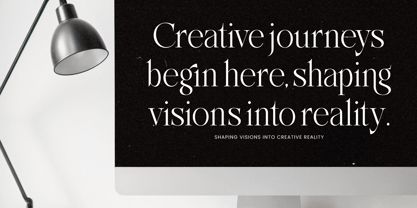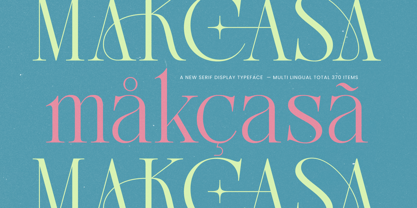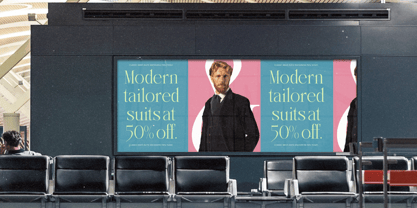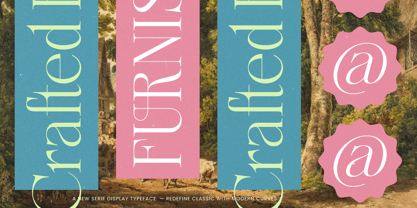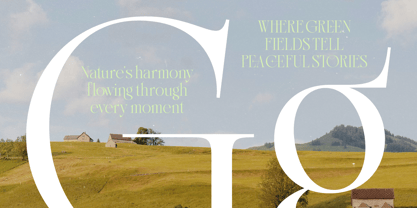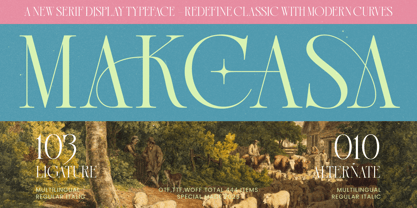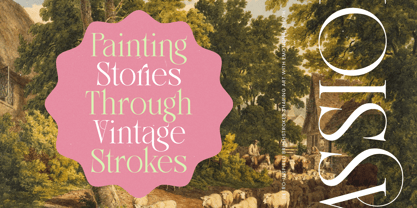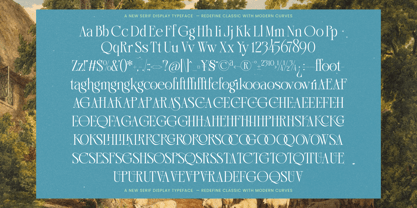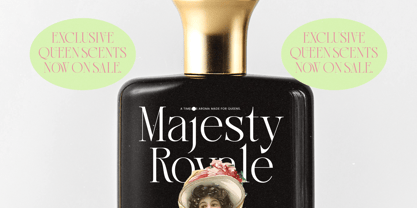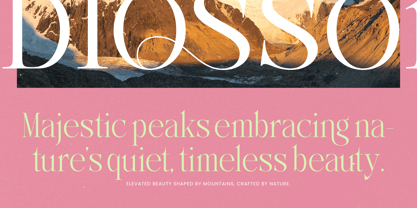
Makcasa
by Timelesstype Studio
The Makcasa Font Family was designed by Heru Utama Putra and published by Timelesstype Studio. Makcasa contains 2 styles and family package options. More about this family
Makcasa New Serif Display Typeface , Makasa is a refined serif display typeface that blends classic calligraphic heritage with modern, flowing curves. Its elegant strokes, elongated forms, and artistic ligatures create an elevated, timeless aesthetic suitable for luxury branding, editorial layouts, wedding stationery, packaging, logos, and high-fashion visual identities. The font delivers a sophisticated balance between tradition and contemporary style, making every composition feel polished and expressive.